‘Primarium: A case for cursive’ exhibition finishes its run at the HMCT Gallery
This week marks the closing of ‘Primarium: A case for cursive’ exhibition at the HMCT Gallery. We take a look back at its successful run.
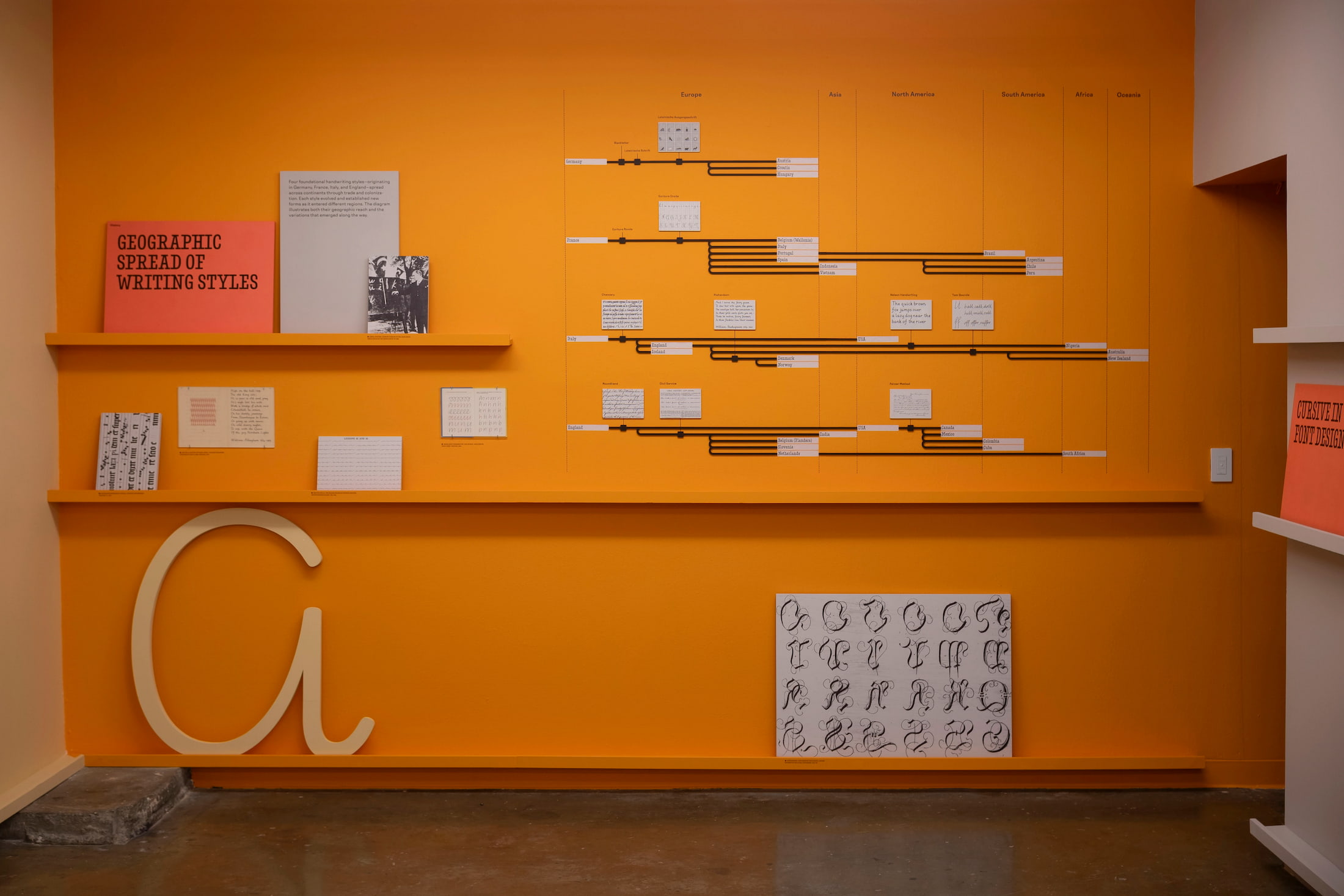
This week marks the closing of ‘Primarium: A case for cursive’, an exhibition at the Hoffmitz Milken Center for Typography (HMCT) Gallery at the ArtCenter College of Design in Pasadena, California. The exhibition was based on the research done by TypeTogether in its Primarium project, which studies how handwriting is taught in countries worldwide.
“We were so pleasantly surprised when we found out that HMCT wanted to put together an exhibition based on our work on the Primarium project,” says TypeTogether co-founder Veronika Burian, who together with co-founder José Scaglione visited the exhibition and gave a talk on the project at its opening (see video). “The care exhibition designers and curators Lavinia Lascaris and Ximena Amaya put into presenting the exhibition far exceeded anything we could have imagined.”
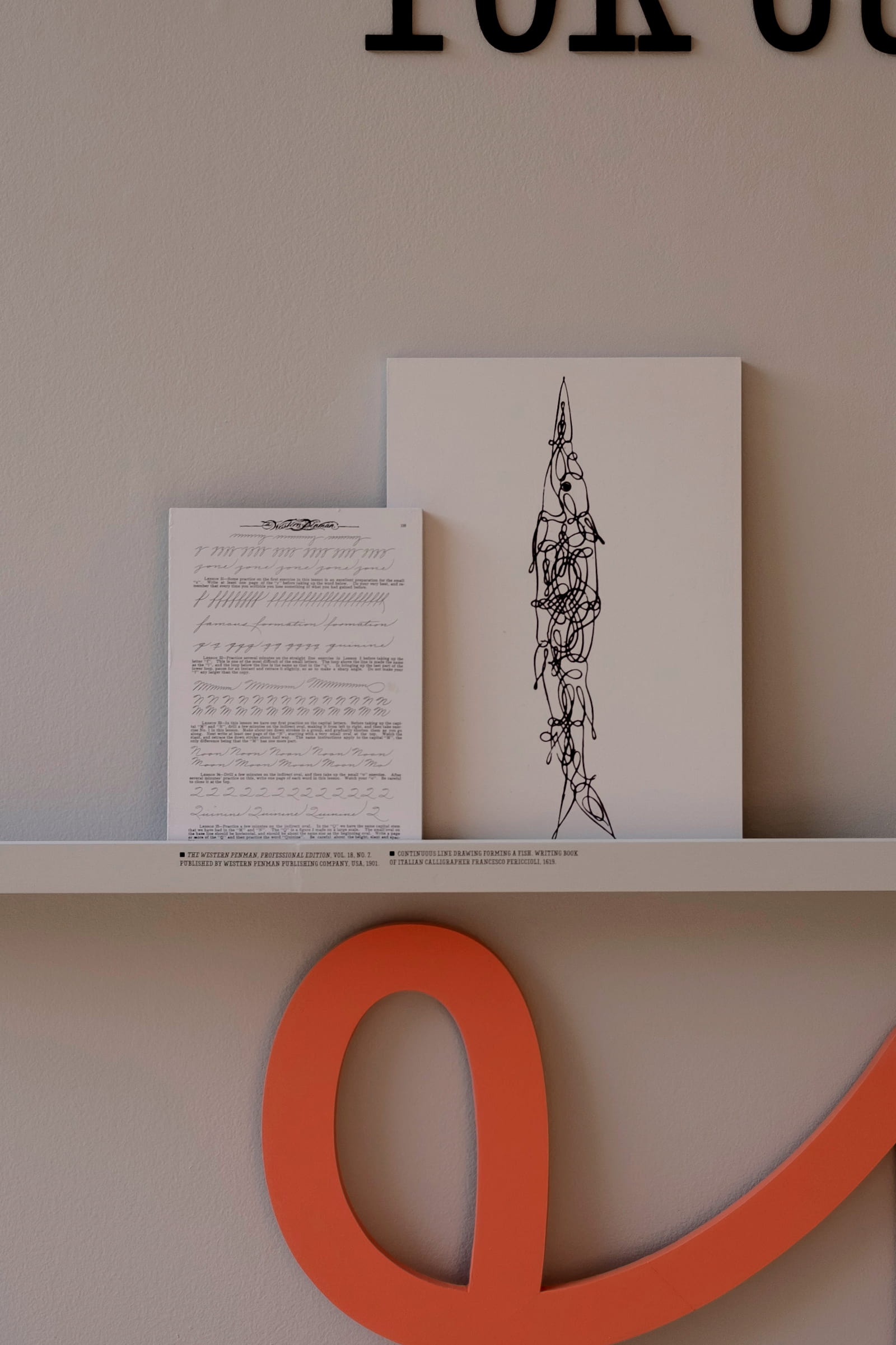
In engaging wall displays and videos, the exhibition tells the story of how cursive writing developed and spread. A particularly engaging timeline charted key milestones in the development of cursive models worldwide from 400 B.C. to present, illustrating how different styles emerged and influenced those that followed. The exhibition also beautifully presented the Playwrite type superfamily, which emerged as one of the products of the Primarium research.
The exhibition also featured interviews with experts in handwriting instruction, cognitive science, and motor development such as Ann Bessemans and Anca-Georgiana Simion, both of whom made strong arguments for the teaching of cursive writing to children as a way of developing fine motor skills as well as cognitive improvements.